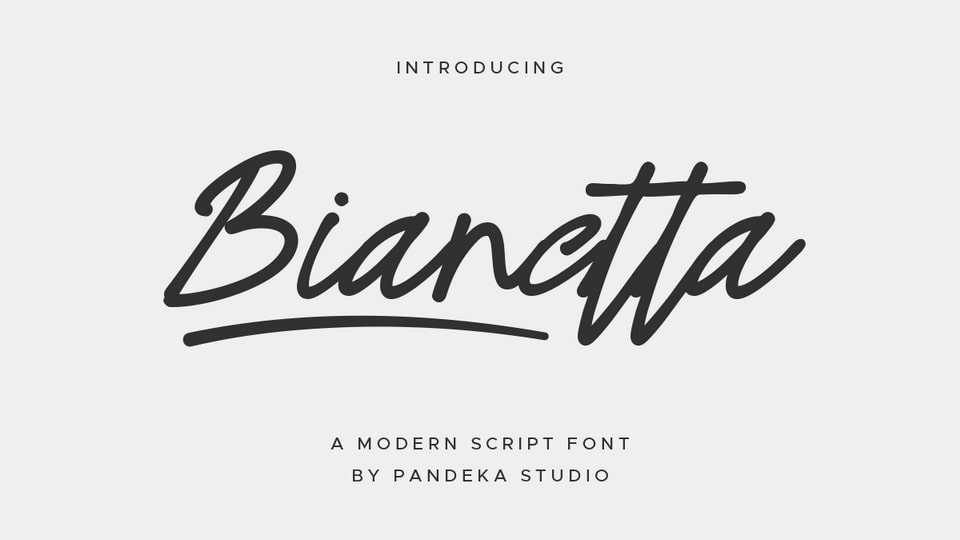
Download Bianetta font, a modern script typeface with elegant lettering and stylish calligraphy, designed to flow effortlessly like smooth handwriting.